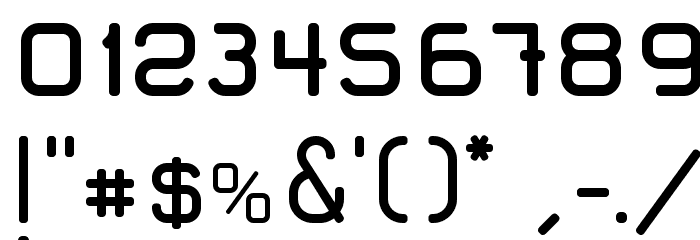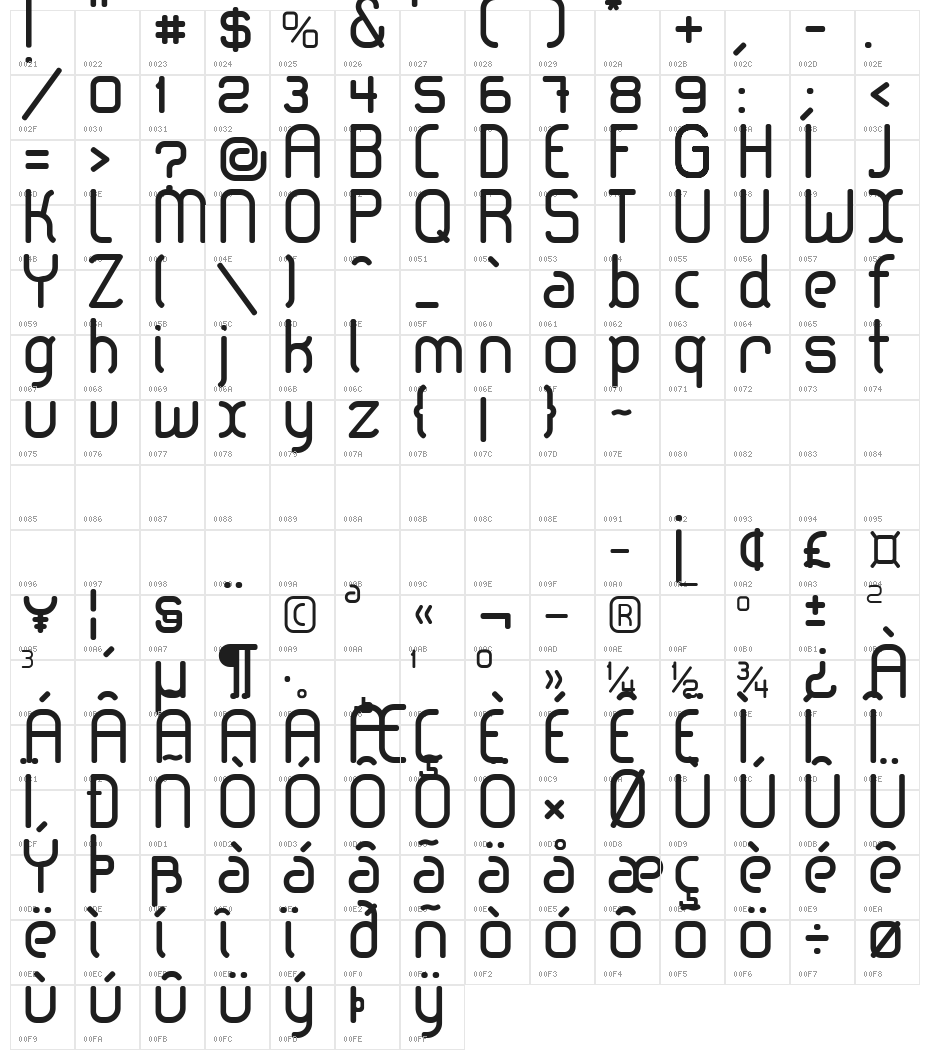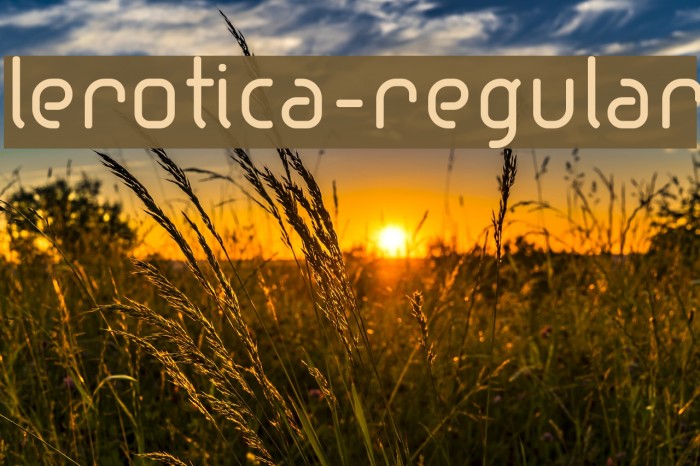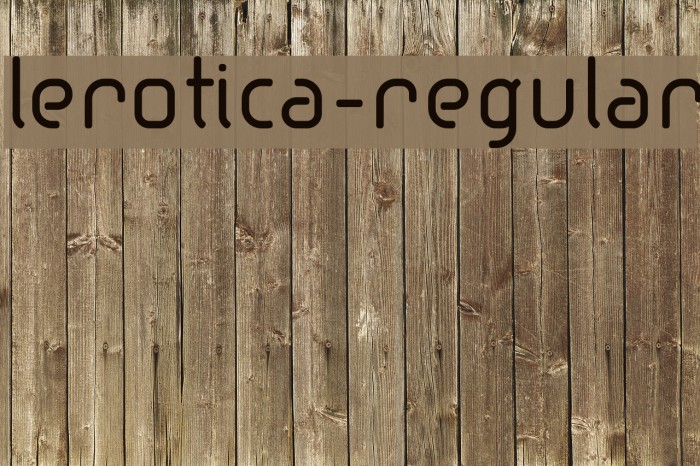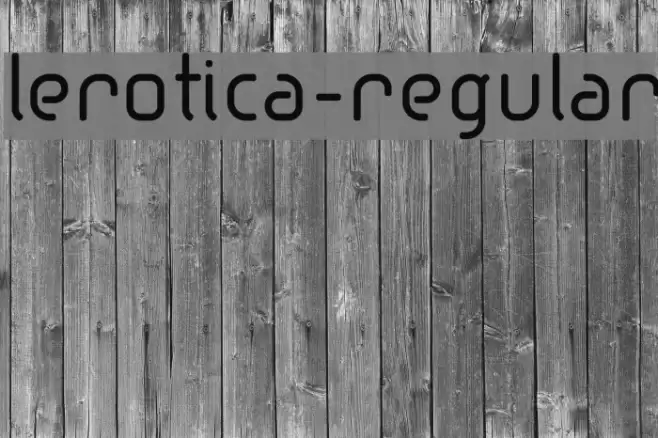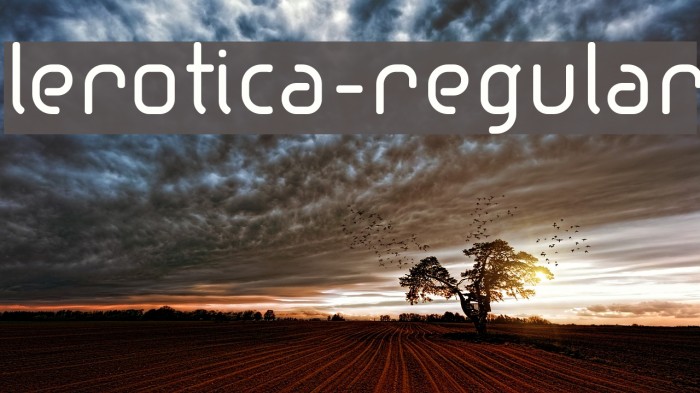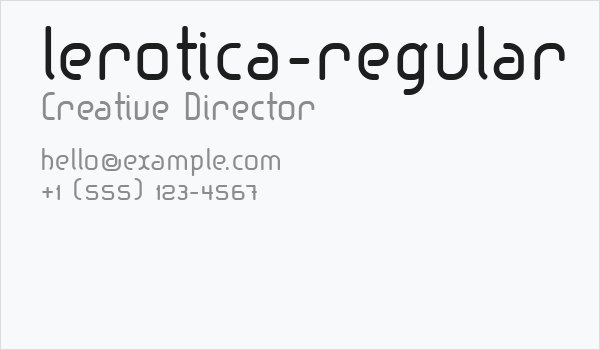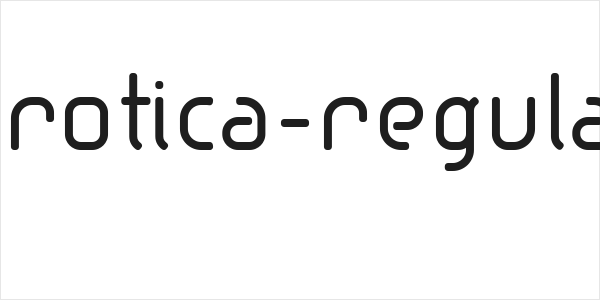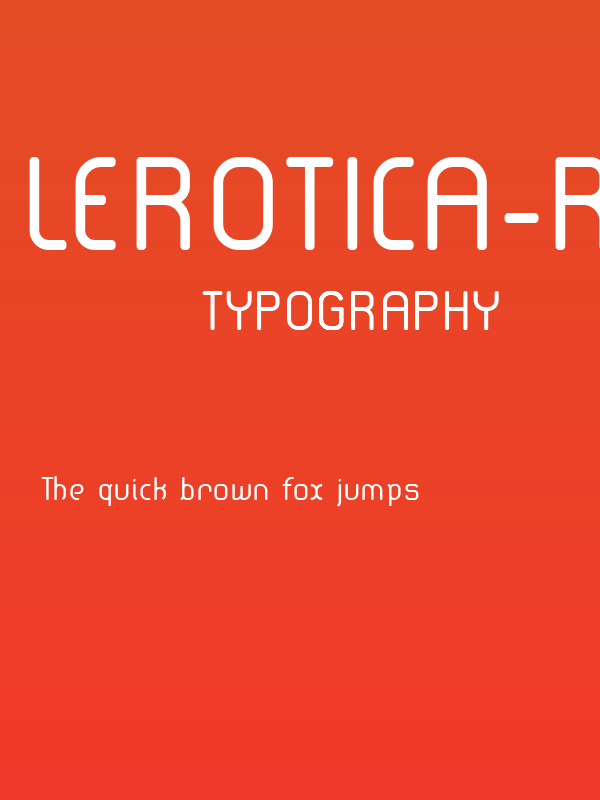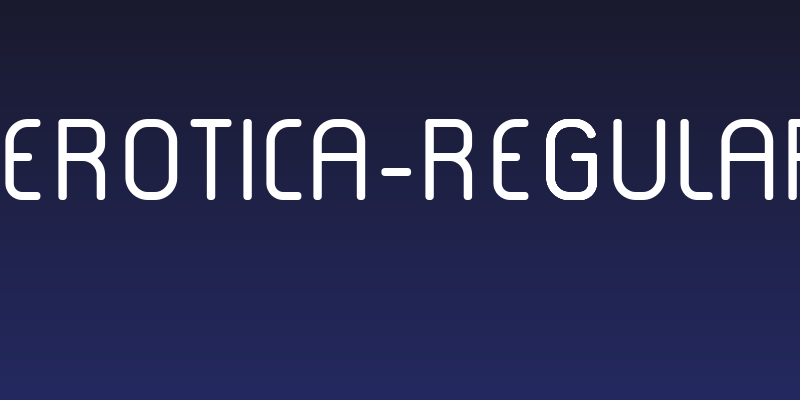
lerotica-regular Font
lerotica-regular Description
This font features a clean and modern design with rounded edges and a geometric structure. The characters are evenly spaced, providing a balanced and harmonious appearance. The uppercase letters are bold and assertive, while the lowercase letters maintain a consistent style with slightly softer curves. The numerals are clear and legible, making them suitable for various applications. Special characters are included, maintaining the same rounded and geometric aesthetic. This font is versatile, offering a contemporary look that can be used in both digital and print media.
| Proposed Projects | Ideal for tech branding, modern web design, app interfaces, and digital advertising. |